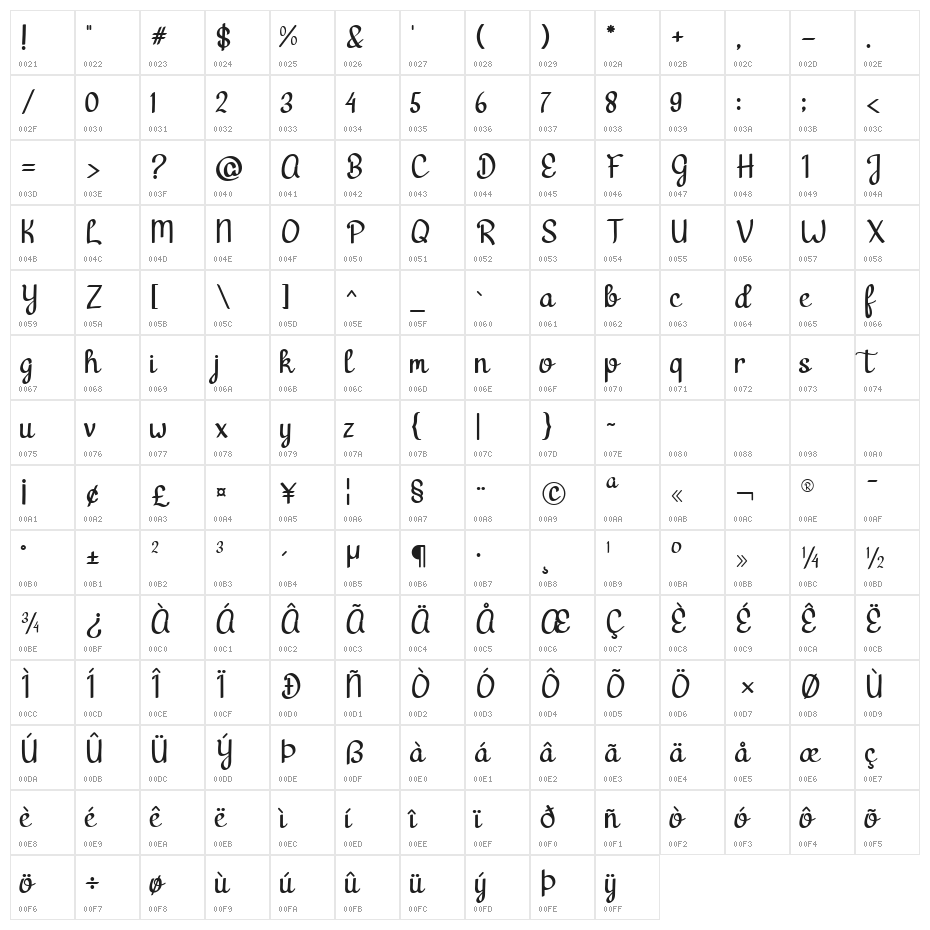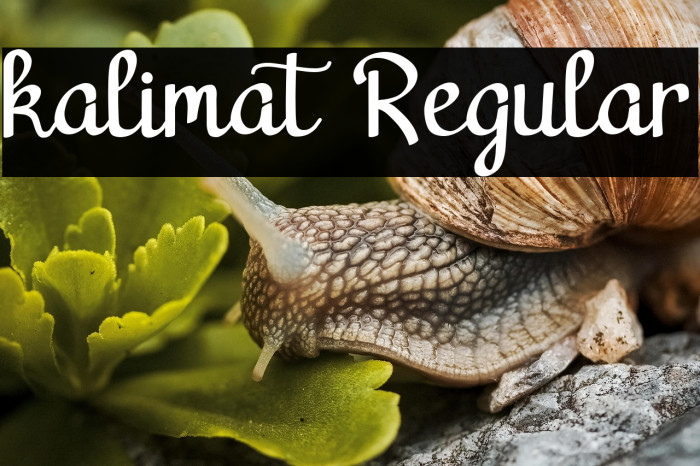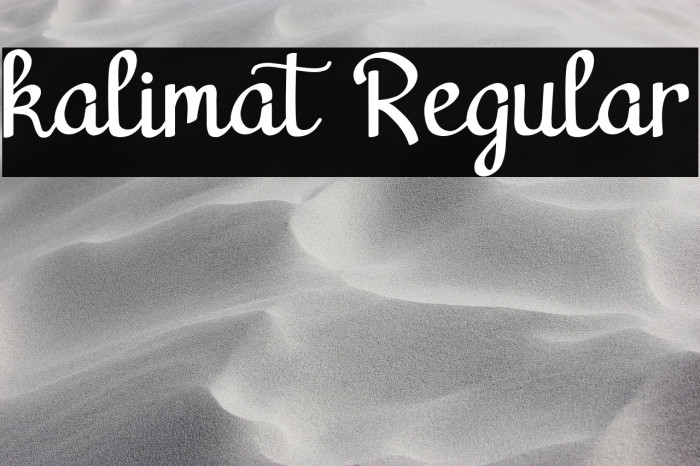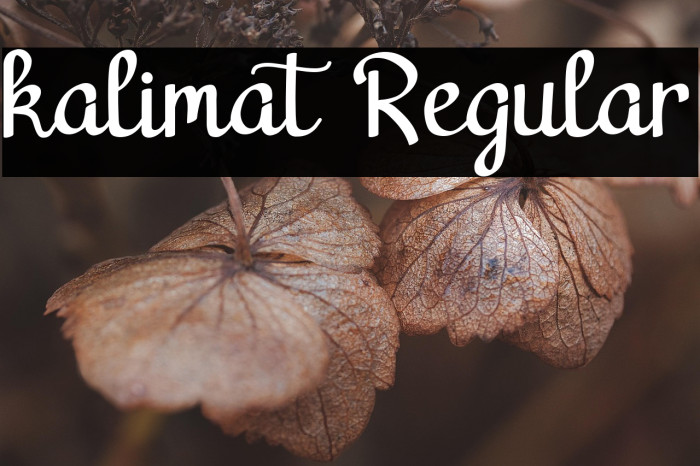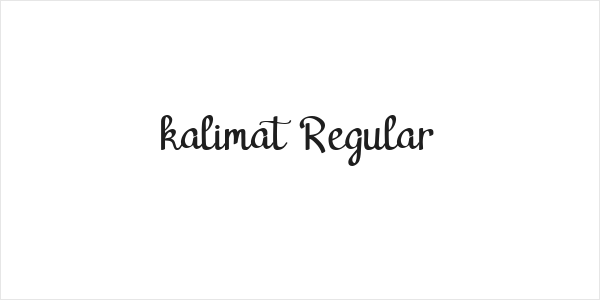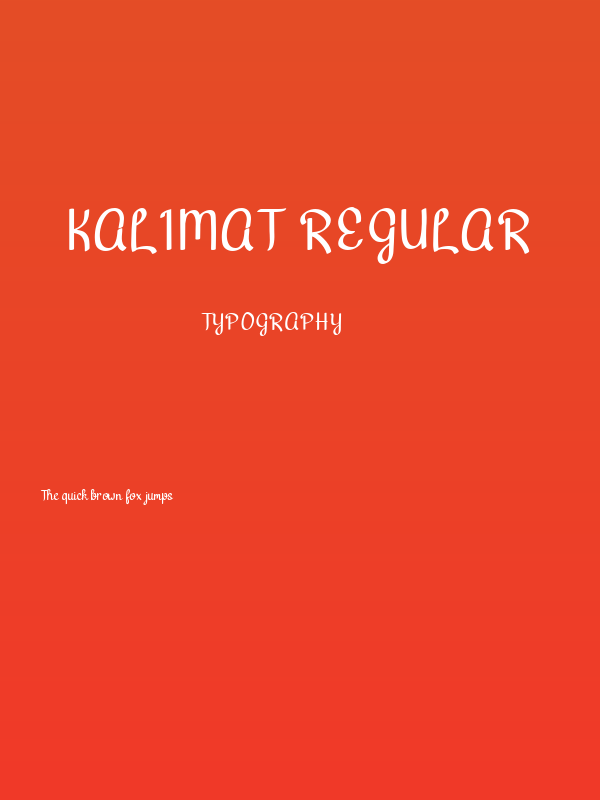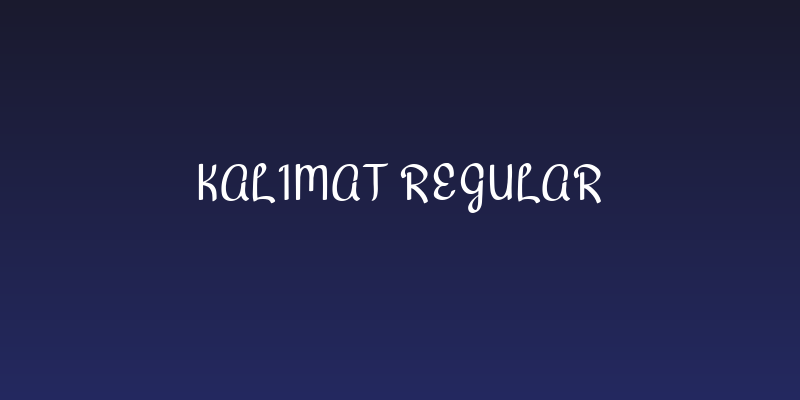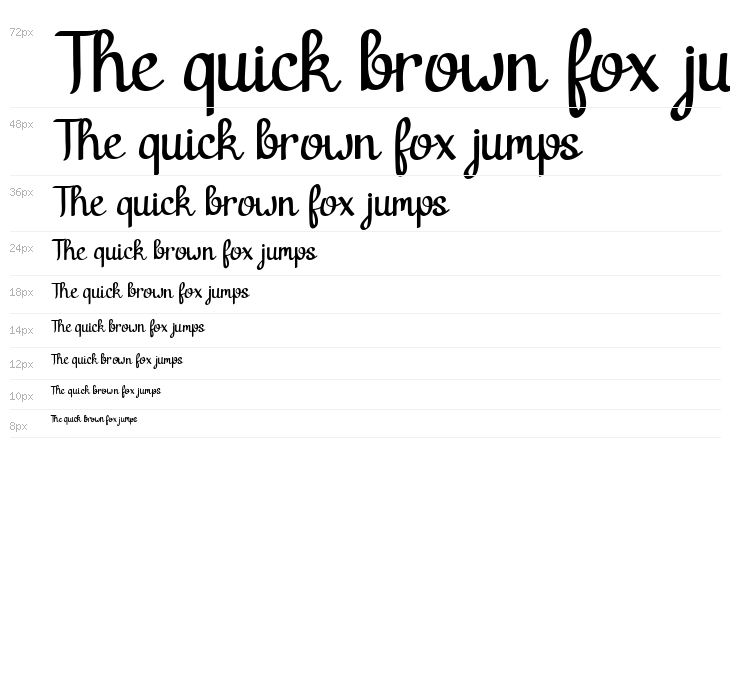
kalimat Regular Font
kalimat Regular Description
This font features a playful and artistic script style, characterized by its flowing and connected letterforms. The uppercase letters exhibit a unique blend of curves and straight lines, creating a dynamic and engaging appearance. The lowercase letters maintain a consistent flow, with some characters featuring distinctive loops and swashes that add to the font's charm. The numerals are well-integrated, matching the overall style with a slightly whimsical touch. Special characters are thoughtfully designed, ensuring versatility across various applications. The font's overall aesthetic is both modern and decorative, making it suitable for creative projects.
| Use Case | Logos, Invitations, Creative projects |
| Proposed Projects | Ideal for invitations, greeting cards, branding, and creative design projects. |